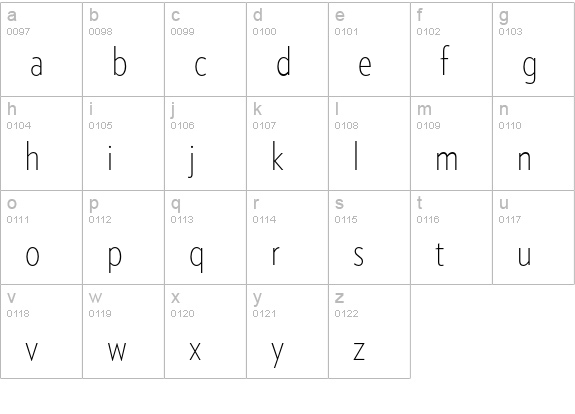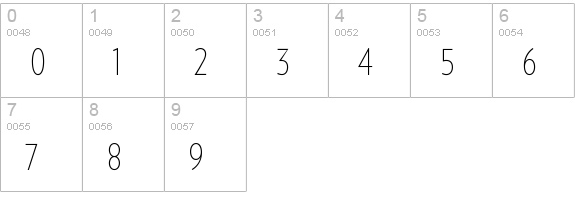
Verlag Condensed XLight is a distinctive, condensed-width variant in the Verlag typeface family \xE2\x80\x94 well suited to design and typography projects.
Verlag Condensed XLight is a sleek and elegant font that exudes sophistication and modernity. Its slim and refined design makes it perfect for a wide range of projects, from branding to editorial design. The XLight weight of the font adds an extra touch of delicacy and finesse to any text it is applied to, making it ideal for creating a clean and minimalist look. One of the best things about Verlag Condensed XLight font is that it is available for free download at FontsMarket.com. This means that you can easily access this versatile and stylish font without any cost, making it a valuable addition to your typography collection. Whether you are a professional designer or a casual user looking to enhance your projects, Verlag Condensed XLight is a fantastic choice that is both high-quality and freely accessible.